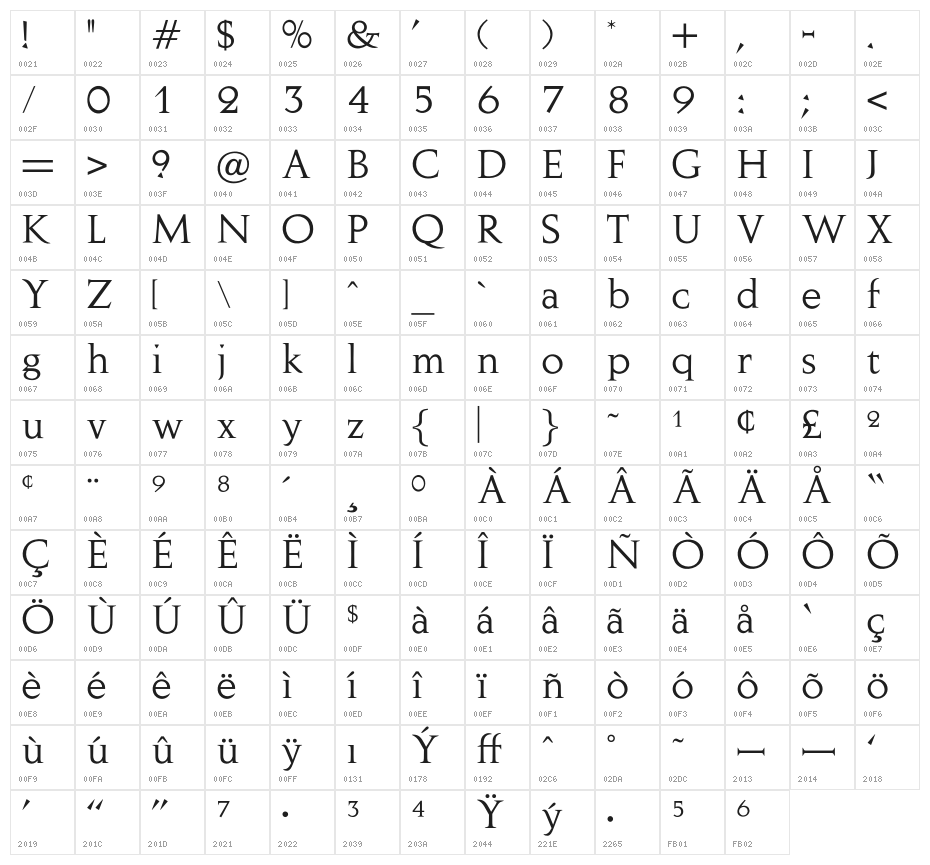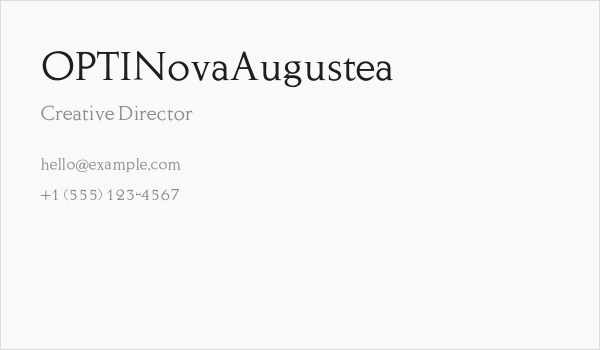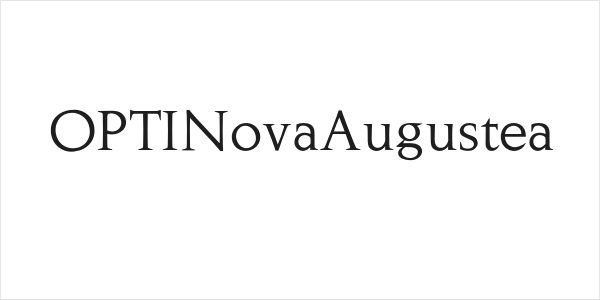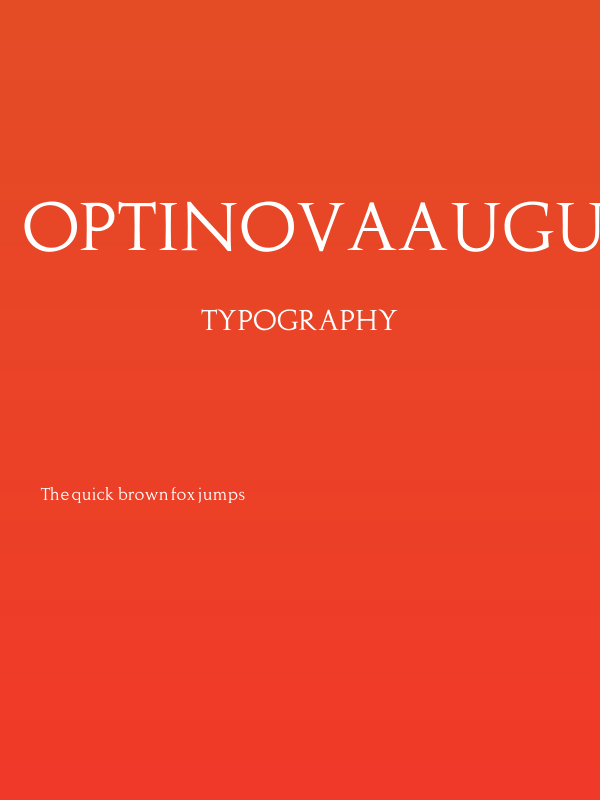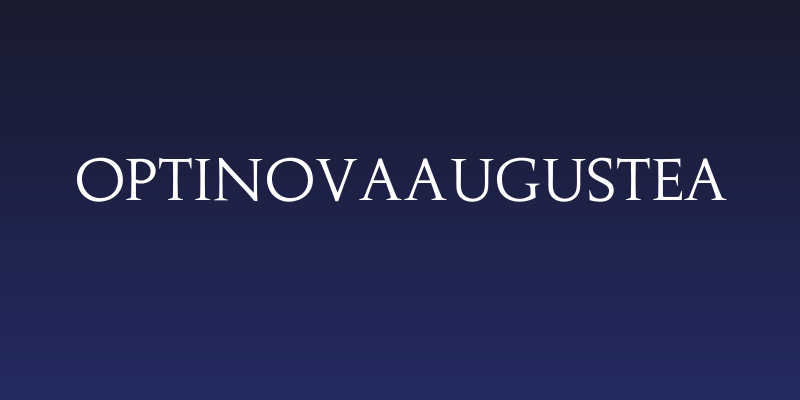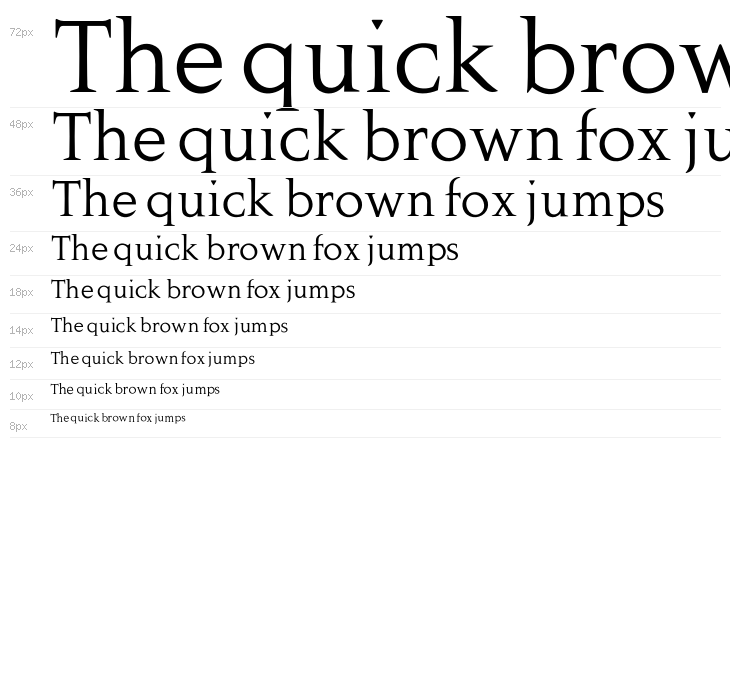
OPTINovaAugustea Font
OPTINovaAugustea Description
This font features a classic serif style with elegant and refined letterforms. The uppercase letters are bold and commanding, while the lowercase letters maintain a graceful and balanced appearance. The numerals are clear and distinct, making them easily readable. Special characters are well-integrated, maintaining the overall aesthetic of the font. The design is reminiscent of traditional Roman typefaces, offering a timeless and sophisticated look suitable for formal and professional applications.